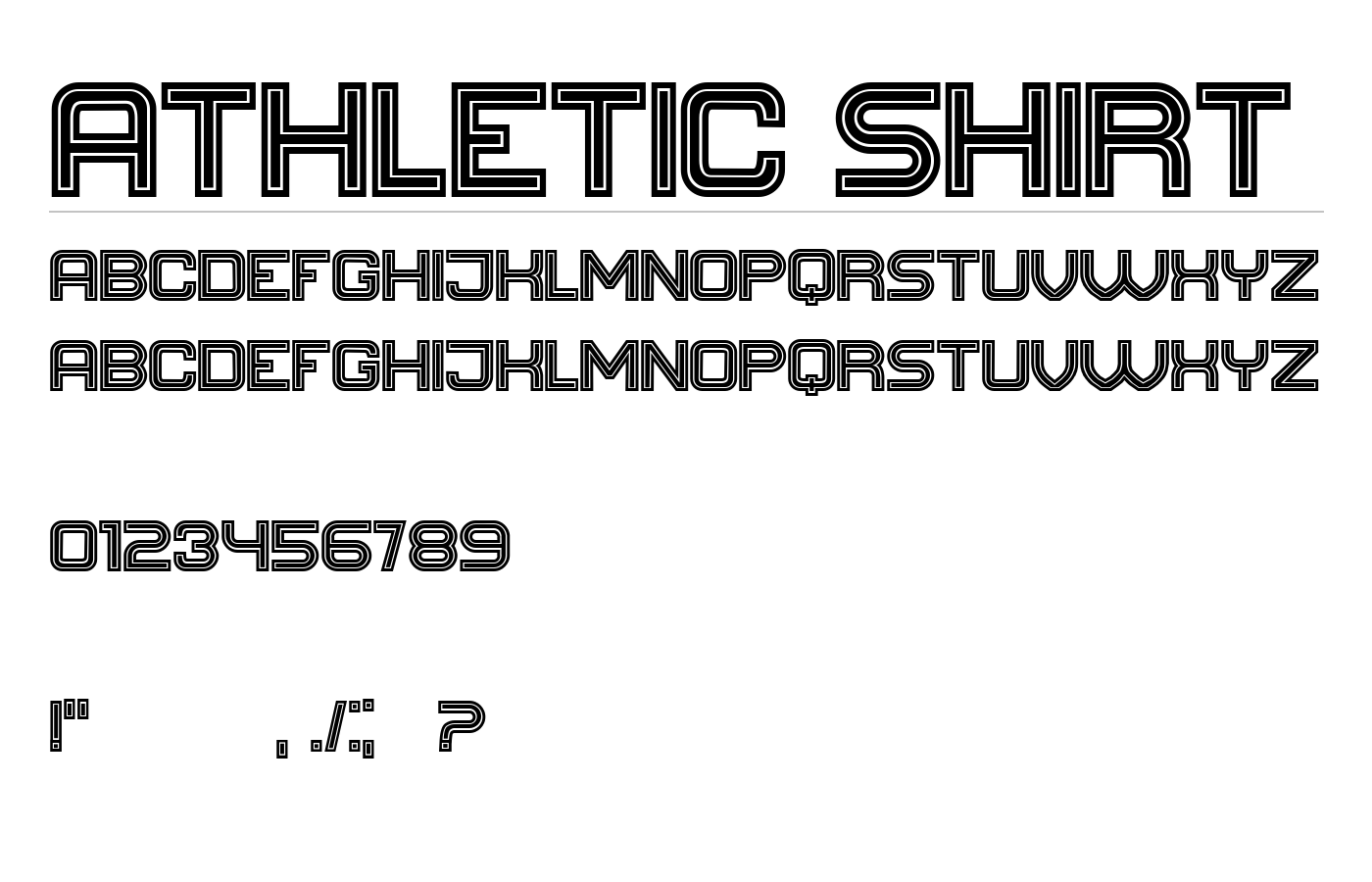
Athletic Shirt Font is a bold, geometric sans serif with a sporty, vintage vibe, featuring clean double-line outlines that evoke classic athletic jersey lettering. Its structured, condensed letterforms with uniform stroke weight and high x-height make it highly legible and dynamic, perfect for energetic branding and sports-themed designs. This font works great for logos, posters, and apparel where a strong, athletic, and retro style is desired.
Athletic Shirt Font
About Athletic Shirt Font